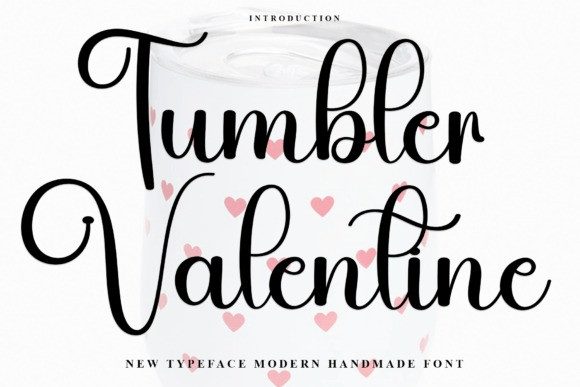
Tumbler Valentine Script Font
Tumbler Valentine Script Font is a delicate, elegant and flowing handwritten font. It has beautiful and well balanced characters and as a result, it matches a wide pool of designs. Add it to your most creative ideas and notice how it makes them come alive!